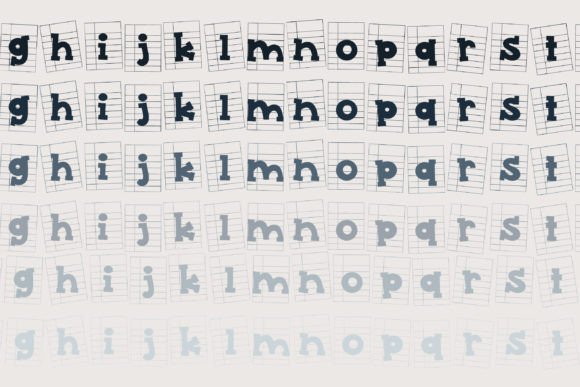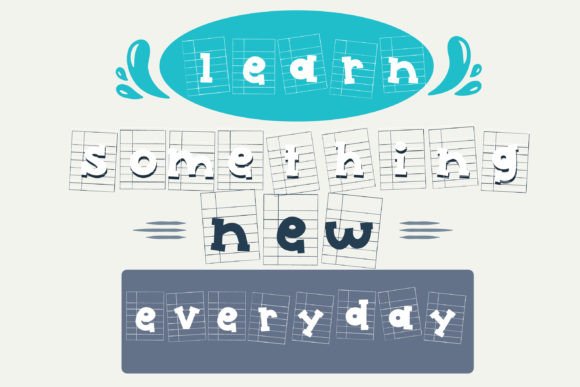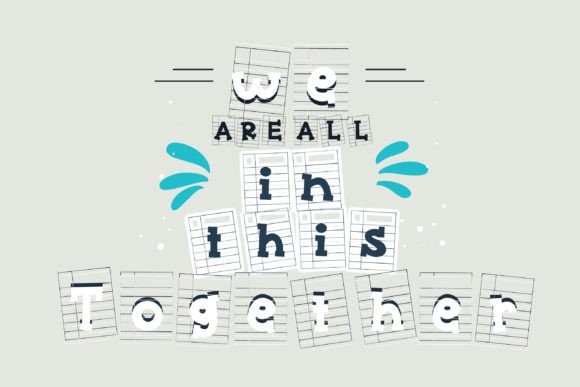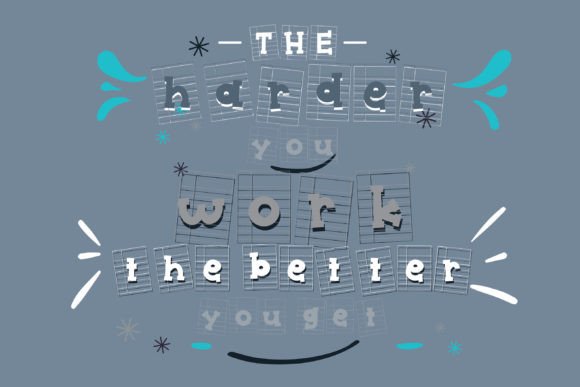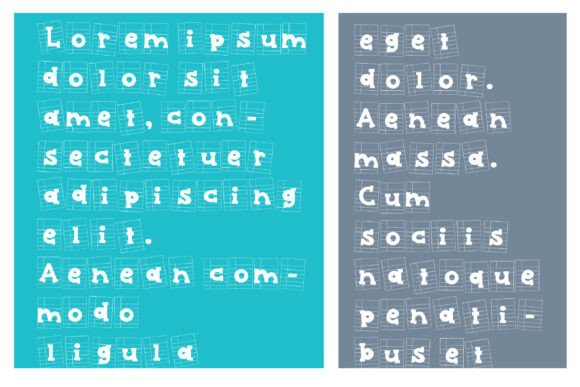
Introduction to Papered Serif Font Font
Fonts play a crucial role in design, and the Papered Serif Font font is a typeface that brings both character and versatility to any project. Whether you’re working on a branding project, a website, or a print design, the Papered Serif Font font offers a unique style that can elevate your work.
Papered Serif is a classic serif font that looks like itβs written on small squares of lined paper.
Its clean, stylish letters have little lines or βserifsβ at the ends, giving it a neat and organized feel .
Key Features of Papered Serif Font Font
Why Choose Papered Serif Font Font?
The Papered Serif Font font is more than just a typeface β it’s a design tool that helps you communicate your message with style and clarity. Its unique character set and versatile design make it suitable for a wide range of applications, from elegant invitations to bold headlines.
With its carefully crafted letterforms and balanced proportions, the Papered Serif Font font ensures readability and visual appeal across all mediums.
What makes Papered Serif Font font special?
The Papered Serif Font font stands out with its unique design, exceptional readability, and versatility across various design applications.